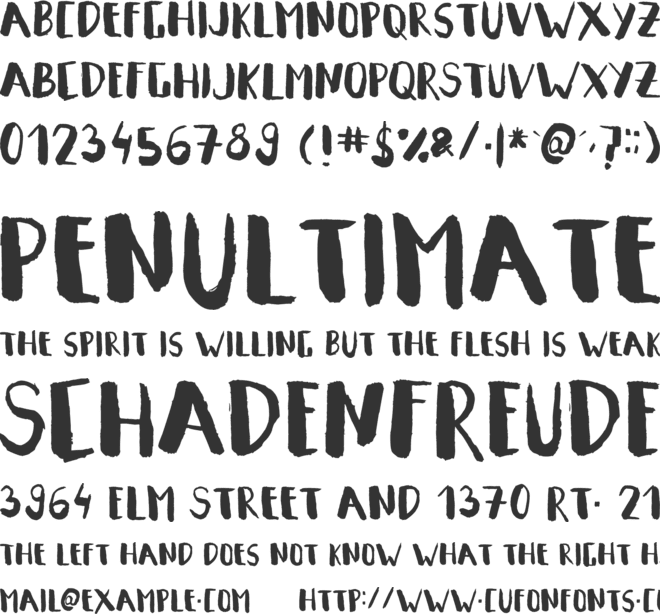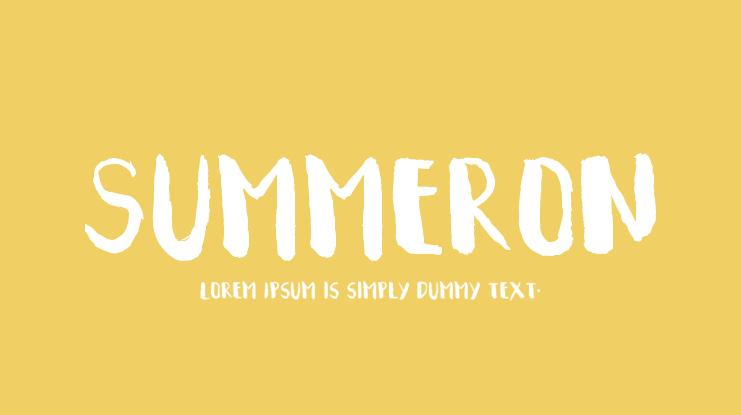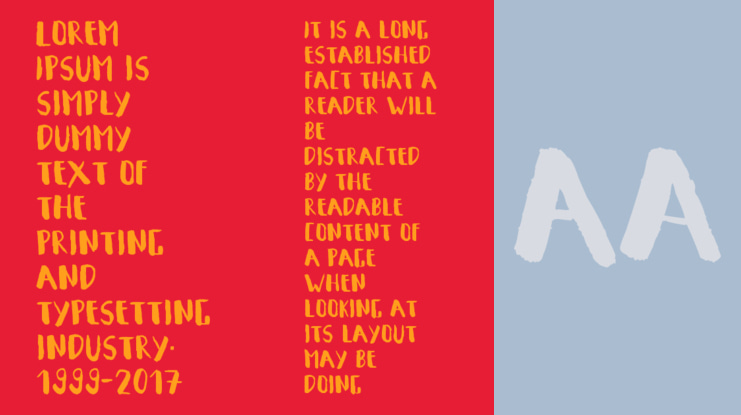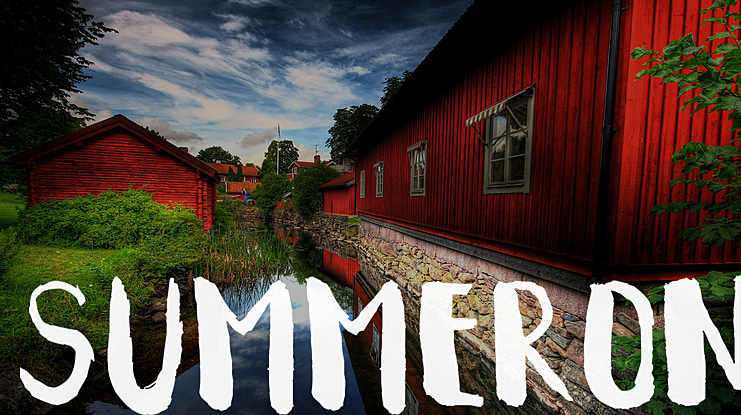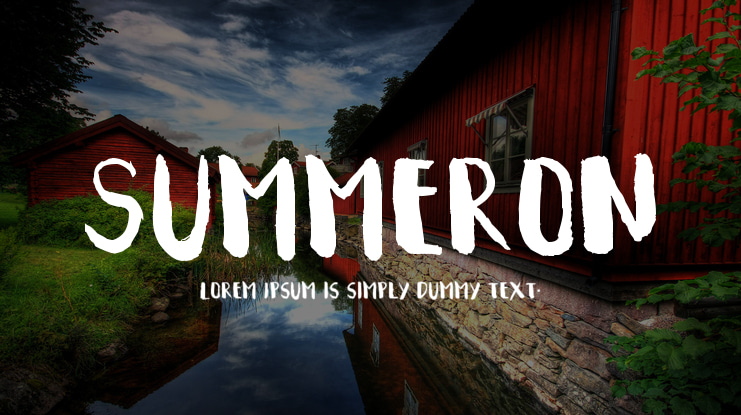
Summeron Font
This is handmade Font, Calligraphy style, Suitable for design, element design, wedding, event, t-shirt, logo, badges, sticker, and awesome work about summer.